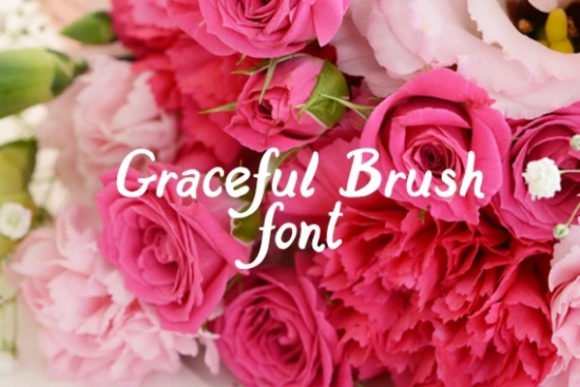
Introduction to Graceful Brush Font
Graceful Brush is a bold display font, created to uniquely make any design project stand out.
Its casual charm makes it appear wonderfully down-to-earth, readable and, ultimately, incredibly versatile Use it on logos, branding, social media, crafty DIY projects and much more.
Key Features of Graceful Brush Font
Why Choose Graceful Brush Font?
Graceful Brush Font offers exceptional quality and versatility, making it a valuable addition to your design toolkit. Whether you’re creating for personal projects or commercial use, Graceful Brush Font delivers professional results.